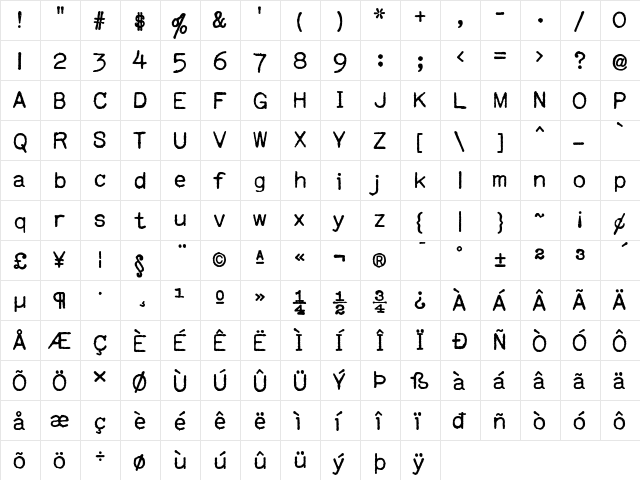
Customs Paperwork AOE Regular
Design Context for Customs Paperwork AOE Typeface
Customs Paperwork AOE takes a measured approach to typography — its balanced proportions and neutral character make it a reliable workhorse for both digital and print work.
Pro Tip: Use Customs Paperwork AOE in both headline and body roles to test its range before committing to a single application.